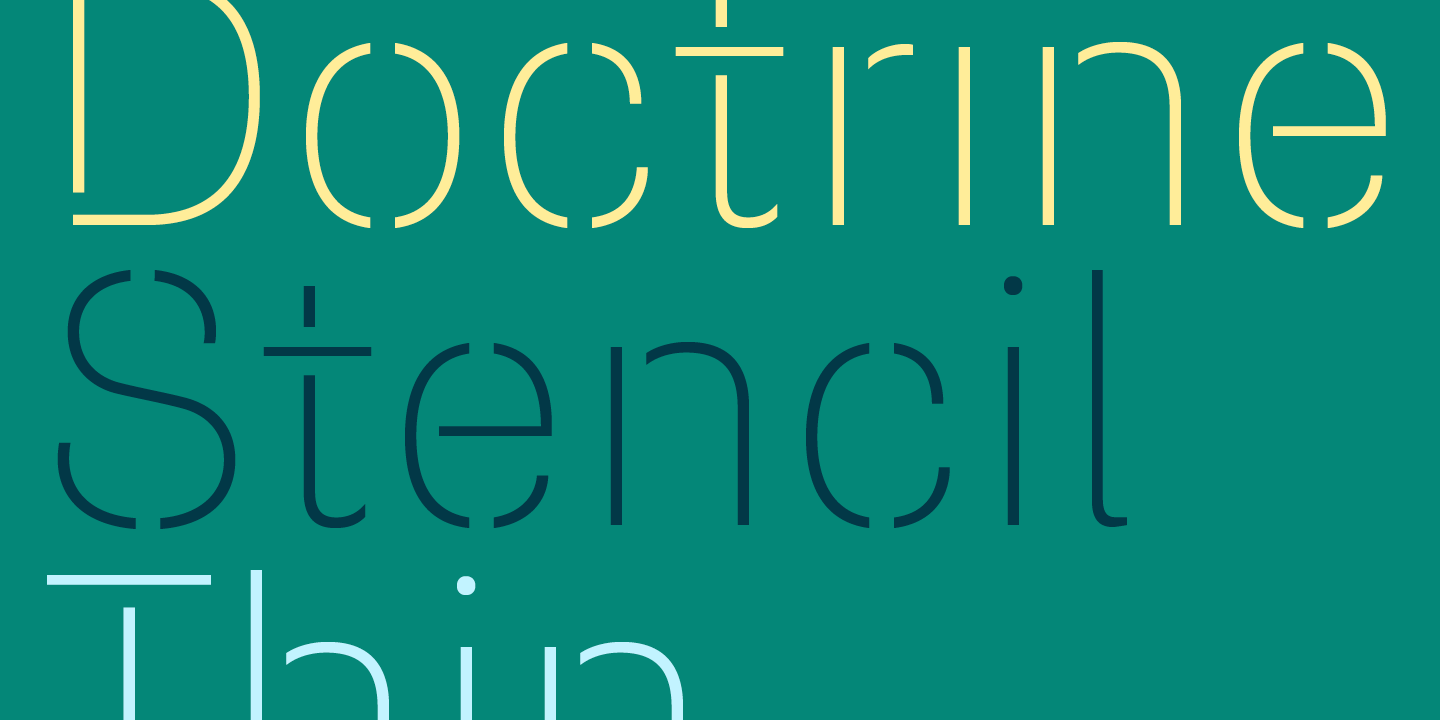
Doctrine Stencil Font Free Download is a bold and striking stencil typeface perfect for military-themed designs, posters, branding, packaging, and urban streetwear graphics. Its strong, cut-out letterforms give your projects an edgy, industrial vibe.
What makes this font so exciting is its distinctive stencil style, which adds a rugged and dynamic feel to any design. Doctrine Stencil Font commands attention and brings a unique character that stands out in crowded visual environments.
Doctrine Stencil Font includes multiple weights such as Regular and Bold, providing flexibility to create impactful typographic hierarchies and versatile layouts.
Make your designs bold and unforgettable with the commanding style of Doctrine Stencil Font Free Download, and communicate your message with power and edge.